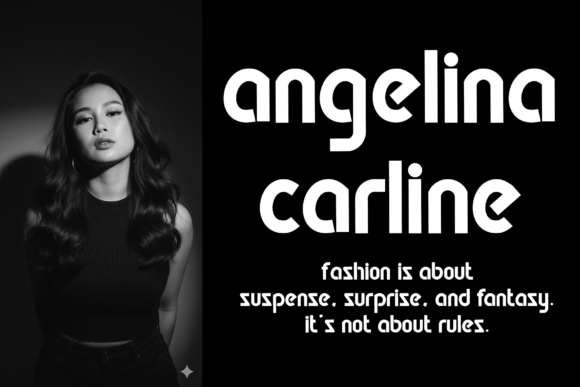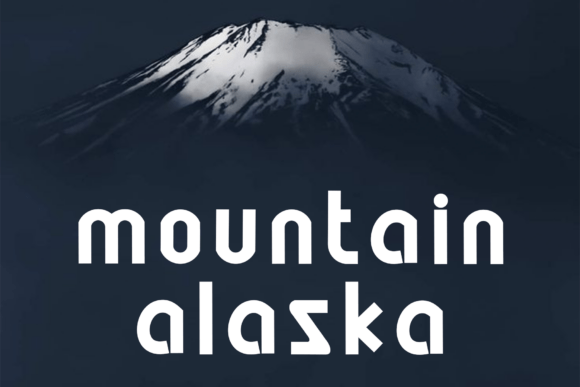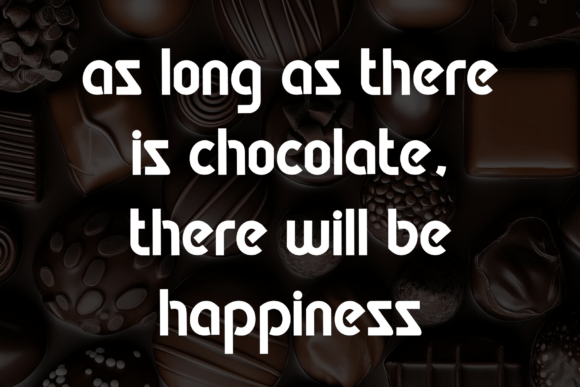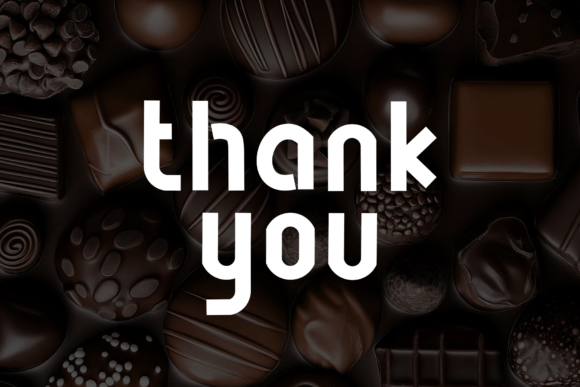
The Sweet Spot: Discovering Chocolate Font for Your Design Projects
I still remember the design project that led me to discover Chocolate Font. I was working on a branding project for a trendy new coffee shop, and I was struggling to find the perfect font that would capture their modern and industrial vibe. The client was particular about having a clean and professional look, and I was on a tight deadline. That’s when I stumbled upon Chocolate Font, and it was love at first sight! ✨
- ✅ Clean and contemporary design that’s perfect for modern brands
- ✨ Highly legible, even at large sizes
- 💡 Unique cuts and angles that give it a subtle tech or industrial aesthetic
- 🎉 Versatile and adaptable for various design projects, from food and beverage branding to tech logos and signage
While Chocolate Font is an excellent choice for many design projects, there are a few things to keep in mind: 🤔
- ⚠️ Limited font weights, which might make it less suitable for projects that require a range of weights
- ⚠️ Some users have reported issues with kerning, particularly at smaller font sizes
Exploring Alternatives: Similar Fonts to Chocolate Font
If you like Chocolate Font, you might also enjoy these similar fonts:
- Montserrat: A geometric sans-serif font with a similar industrial feel, perfect for modern brands and tech companies
- Avenir: A clean and futuristic font that’s great for headlines and titles, with a slightly more elegant feel than Chocolate Font
- Inter: A contemporary sans-serif font designed specifically for digital use, with a similar focus on legibility and versatility
- Helvetica: A classic sans-serif font that’s clean and professional, with a more traditional feel than Chocolate Font
The Design Story Behind Chocolate Font
Chocolate Font was designed with the goal of creating a clean, modern, and highly legible sans-serif font. The designer aimed to craft a font that would be perfect for food and beverage branding, modern tech logos, and signage. The result is a font that’s both versatile and visually striking, with a unique blend of geometric shapes and subtle industrial touches.
Q: What is Chocolate Font best suited for?
A: Chocolate Font is an excellent choice for food and beverage branding, modern tech logos, signage, high-impact headlines, and any project that needs a strong, clear, and professional geometric style.
Q: Is Chocolate Font suitable for body text?
A: While Chocolate Font is highly legible, it’s primarily designed for display use. For body text, you may want to consider a font with more traditional proportions and better readability at smaller sizes.
Q: Are there any plans for an italic version of Chocolate Font?
A: While there are no official plans for an italic version, some font foundries offer italic or oblique versions of similar fonts. You can also experiment with faux italic styles using design software, but results may vary.